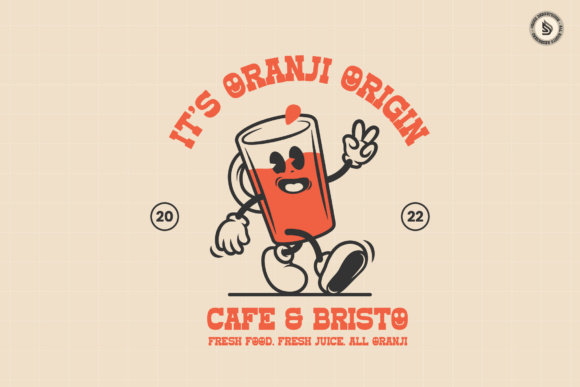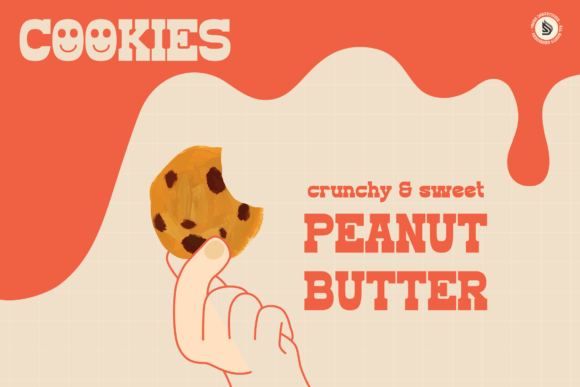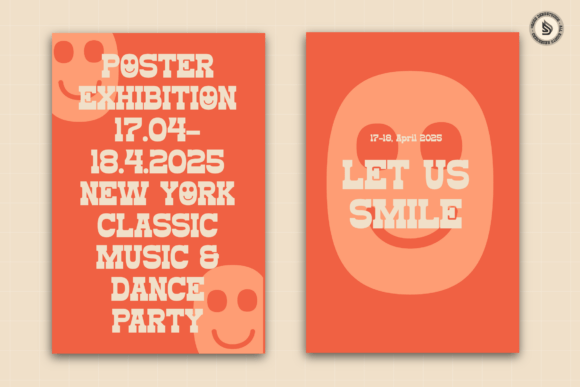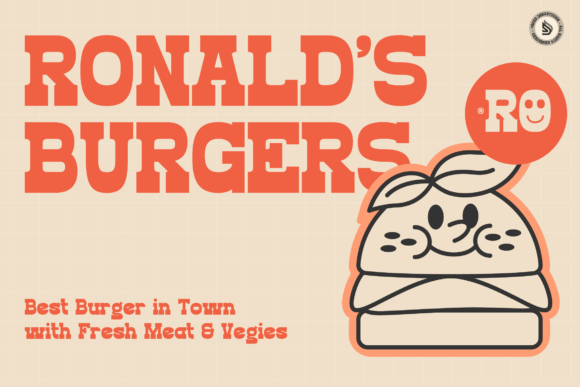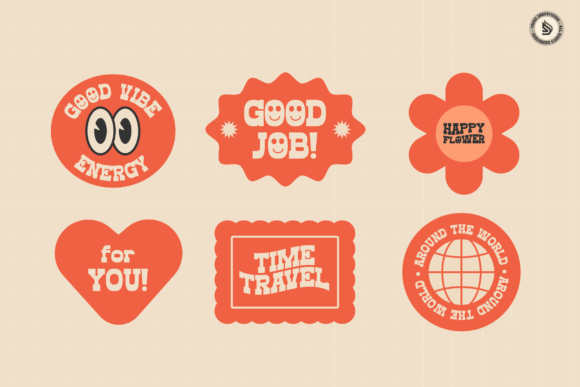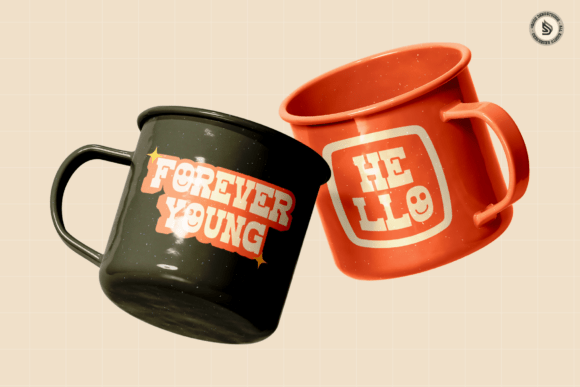
Introduction to O’feel Font
Have you ever stumbled upon a font that perfectly captures the essence of your creative project? For me, that moment came when I discovered O’feel Font – a bold and playful slab serif font that’s equal parts fun and professional. I was working on a branding project for a children’s book and needed a font that would bring the energy and playfulness of the story to life. O’feel Font’s rounded edges and chunky letterforms were the perfect fit.
As a designer, finding the right font can be a game-changer. It’s what elevates a project from good to great, and makes it stand out in a crowded design landscape. With O’feel Font, you get a high-quality design resource that’s perfect for fun branding, eye-catching headlines, and quirky packaging – all with a clean and structured look that’s ideal for projects that need a balance of fun and professionalism.
Key Features of O’feel Font
- Includes a wide range of characters, including uppercase and lowercase letters, numbers, and punctuation
- Designed with a unique, modern aesthetic and clean lines
Honest Review: O’feel Font
I recently stumbled upon the O’feel Font, a free download that caught my eye due to its sleek and modern design. As a designer, I’m always on the lookout for high-quality resources to enhance my creative projects. The O’feel Font does not disappoint.
- High-quality glyphs that are perfect for titles and headings ✨
- Transparent background, making it easy to use on any design surface
- A wide range of weights and styles to choose from
- The font doesn’t support Cyrillic characters, which can be a limitation for certain design projects ⚠️
- The font is not optimized for small font sizes, which can affect readability
Overall, I’m impressed with the O’feel Font’s design and versatility. While it may have some limitations, it’s a great resource to have in your design arsenal, especially for free. I would recommend it for any creative project that requires a modern and sleek font.
Tips for Getting the Most Out of O’feel Font
Use the O’feel Font with a transparent background to create a clean and modern design. Experiment with different font sizes and styles to add visual interest to your project. Use the font in combination with other design elements, such as images and graphics, to create a cohesive and engaging design.
Common Use Cases for O’feel Font
The O’feel Font is suitable for a variety of creative projects, including logo designs, business cards, and marketing materials. It is also a great choice for web design, social media graphics, and other digital projects where a high-quality font is essential.